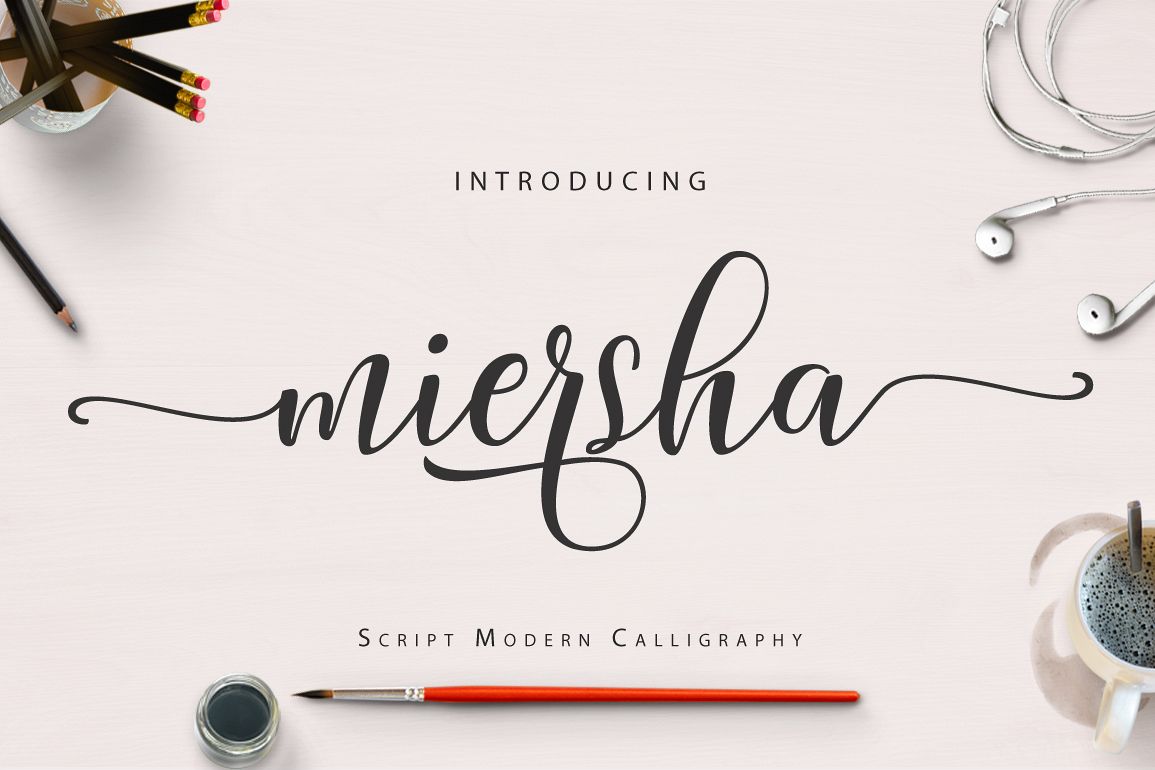
Miersha script
Miersha-Regular
Hi ... Introducing the latest Miersha Script style with modern style, This font is casual and pretty with a scratch. Can be used for various purposes. such as logos, product packaging, wedding invitations, branding, headlines, nameplate, labels, signatures, book covers, posters, quotes and more. hopefully you are interested in this font, if you want to use your work, this font can be used easily and simply because there are many features. in it contains a complete set of lowercase and capital letters, various punctuation, numbers, and multilingual support. Fonts also contain several ligatures and Alternate Style Stylistic Sets for those of you who have software that works OpenType (Photoshop / Illustrator / InDesign).
Miersha Script is perfect for the current market design, this font has a Trendy model, natural and gentle, with this font you can take advantage of this opportunity every time with a stunning way to highlight your holiday celebrations.
Basic Latin A-Z and a-z
Numbers
Symbols
Stylistic Set
Ligature
PUA Encode
Latin Support Character